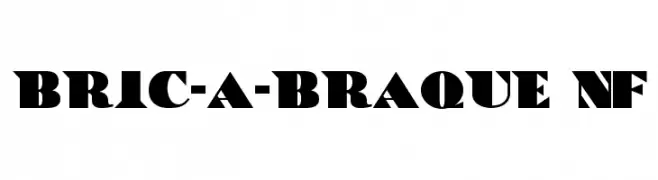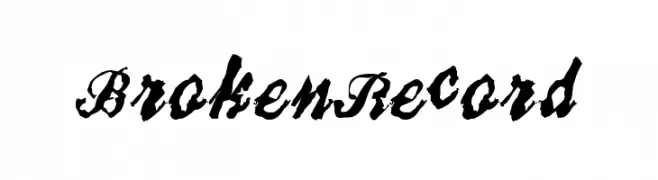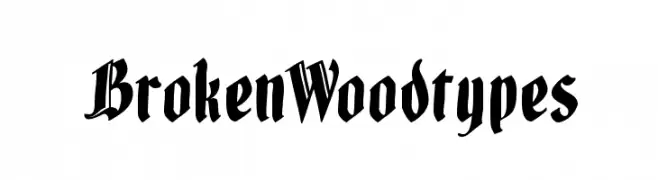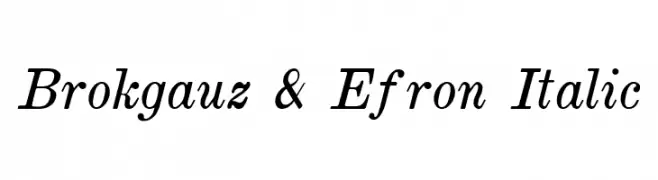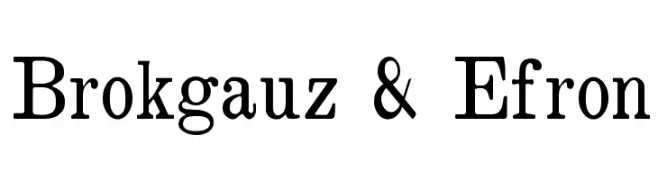
A bold, geometric font with high contrast and sharp angles, perfect for dramatic designs.
A bold, distressed font with a grunge and ghostly appearance.
A bold, blackletter-style font with sharp, angular lines and a medieval aesthetic.
A classic serif font with bold strokes and high contrast, ideal for formal use.
A classic italic typeface with elegant curves and delicate serifs.